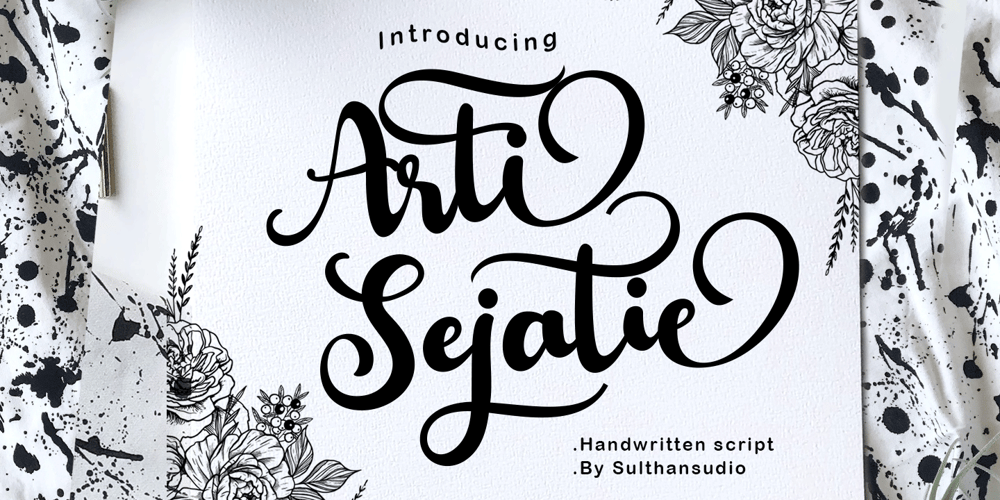
Arti sejati Font Family was designed by Nasrullah and published by Sulthan Studio. Arti sejati contains 1 styles and family package options. A stunning bold script font that is perfect for adding a touch of elegance and sophistication to your designs. With bold and expressive strokes, this font gives a bold impression and attracts attention.Our bold script fonts are carefully crafted to mimic the fluidity and beauty of handwriting. They feature bold, bold lines that create a strong visual impact, yet retain the graceful and flowing nature of traditional script fonts.Whether you’re designing wedding invitations, logos, branding materials or other creative projects, our bold script fonts will add a touch of charm and personality. This font is versatile and can be used for both formal and casual designs, making it suitable for a variety of applications.